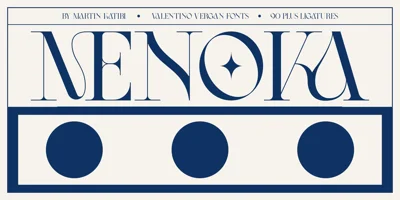
Menoka Font
This elegant serif font is perfect for luxury fashion branding, high-end editorial layouts, premium cosmetics packaging, sophisticated wedding invitations, upscale jewelry marketing, fine art gallery materials, boutique hotel signage, and refined design projects that exude timeless grace.
Menoka Font is exciting because it embodies refined femininity and sophisticated elegance with its graceful letterforms that whisper luxury and class. The font delivers understated power that speaks to discerning audiences who appreciate beauty and refinement.
The Menoka Font family includes light, regular, and bold weights with elegant ligatures, stylistic alternates, and decorative flourishes, providing designers with comprehensive tools for creating exquisite typography that captivates.
Seeking sophisticated elegance for your brand? Menoka Font offers designers refined letterforms that embody grace and timeless beauty with every carefully crafted curve. This distinguished typeface combines classical elegance with contemporary versatility, making it ideal for luxury brands, fashion houses, and premium lifestyle companies. Whether you're designing high-end fashion campaigns, luxury product catalogs, or exclusive event invitations, this font delivers aristocratic appeal. The meticulously designed characters feature delicate proportions while maintaining exceptional readability across all applications. Perfect for businesses in fashion, beauty, luxury goods, and premium services that celebrate sophistication and refinement. The font's elegant construction creates memorable brand recognition that resonates with cultured clientele worldwide. Each letter showcases deliberate grace that mirrors the timeless appeal of classic beauty. Download today and elevate your creative projects with this premium serif font that transforms ordinary text into extraordinary expressions of luxury and the sophisticated charm of Menoka Font excellence.